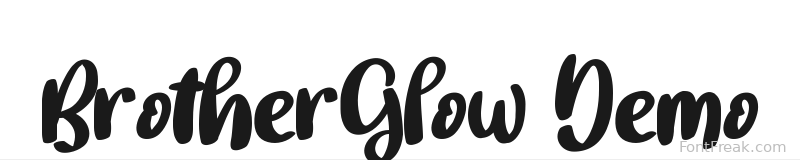
BrotherGlow Demo
BrotherGlow Demo is a captivating display font designed by Noah Type, categorized as a decorative typeface. This font stands out with its playful curves and whimsical strokes, creating a unique visual appeal that draws attention. The stroke weight is varied, offering a delightful contrast that enhances its artistic flair. The spacing between the letters is thoughtfully adjusted, allowing for readability while maintaining an inviting, casual feel. The decorative elements, including loops and swirls, add a touch of charm, making it perfect for creative projects that require a personal touch.
This font is ideal for a variety of applications, including wedding invitations where elegance and warmth are essential. It also shines in children's book covers, where its fun and approachable style can capture the imagination of young readers. Additionally, BrotherGlow Demo is suitable for restaurant menus, providing a cozy atmosphere that invites diners to explore the offerings. Graphic designers can leverage this font for branding projects, especially for businesses that aim to convey a friendly and approachable image. Content creators will find it useful for social media graphics, as it can enhance engagement through its eye-catching design.
Targeting graphic designers, small business owners, and content creators, BrotherGlow Demo offers a versatile solution for anyone looking to add a touch of creativity to their work. The BrotherGlow Demo font free download opens up opportunities for users to experiment with this delightful typeface in their projects. Its combination of charm and readability makes it a standout choice for those who wish to infuse personality into their designs, ensuring that any project featuring this font will leave a lasting impression.